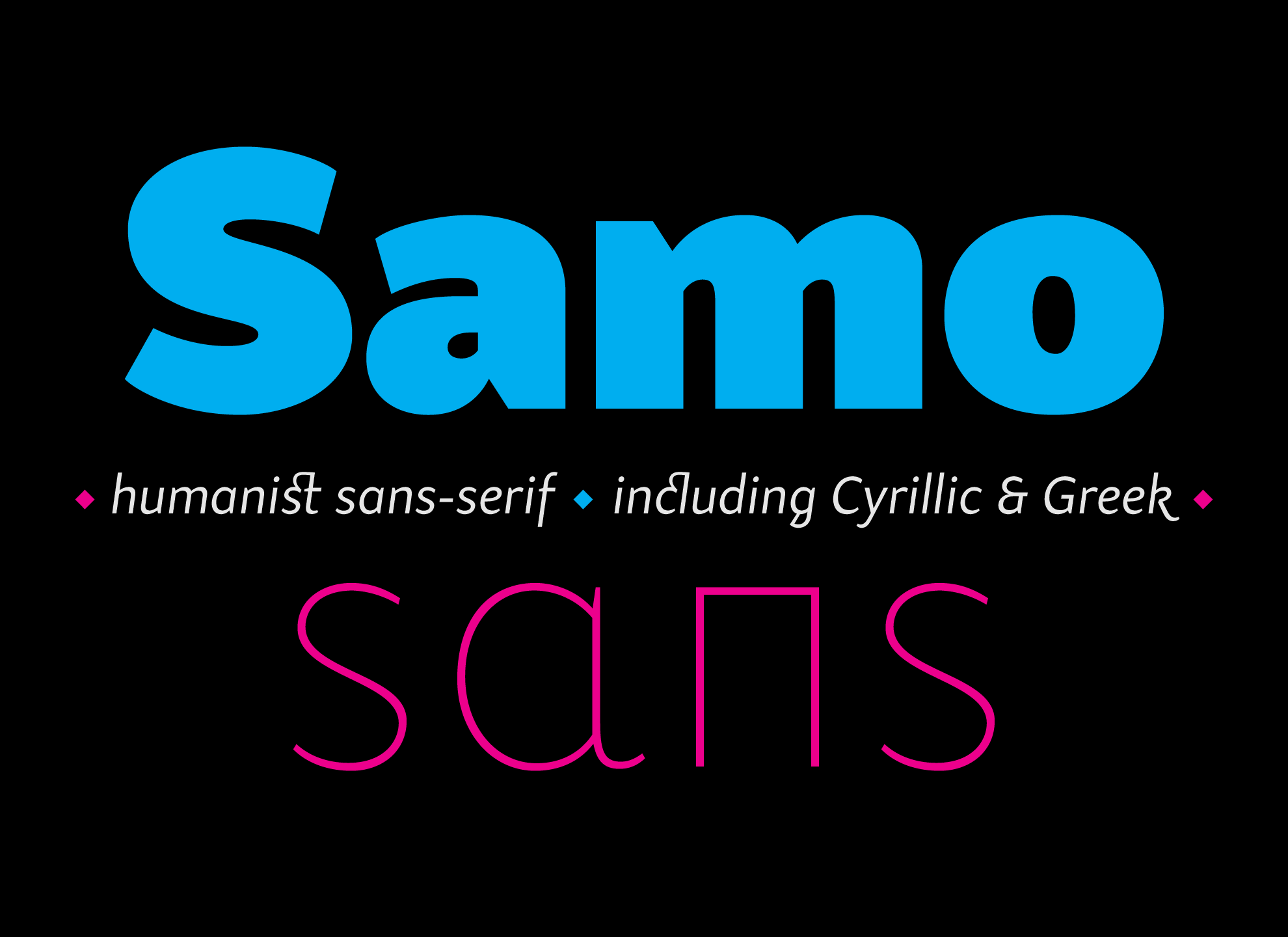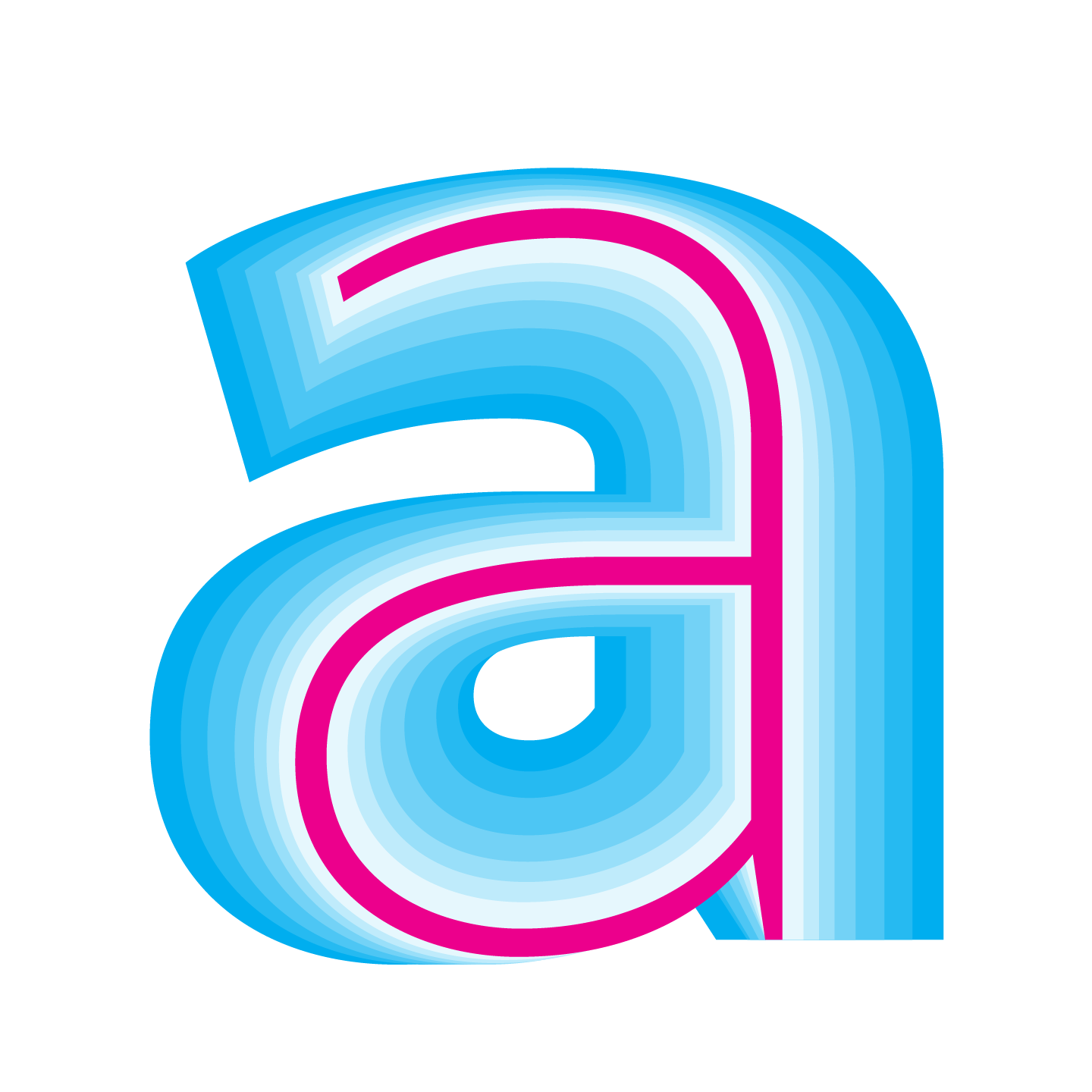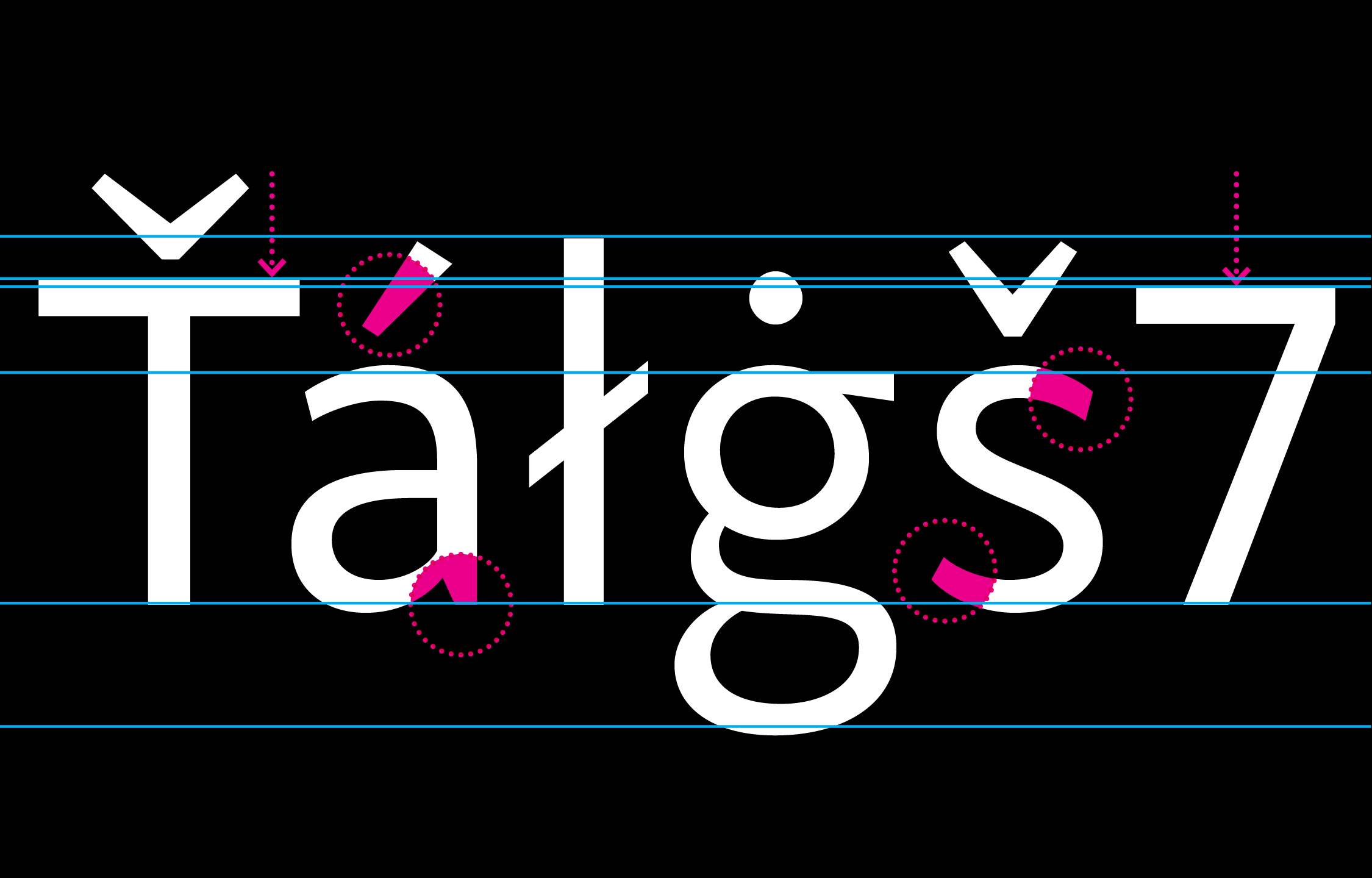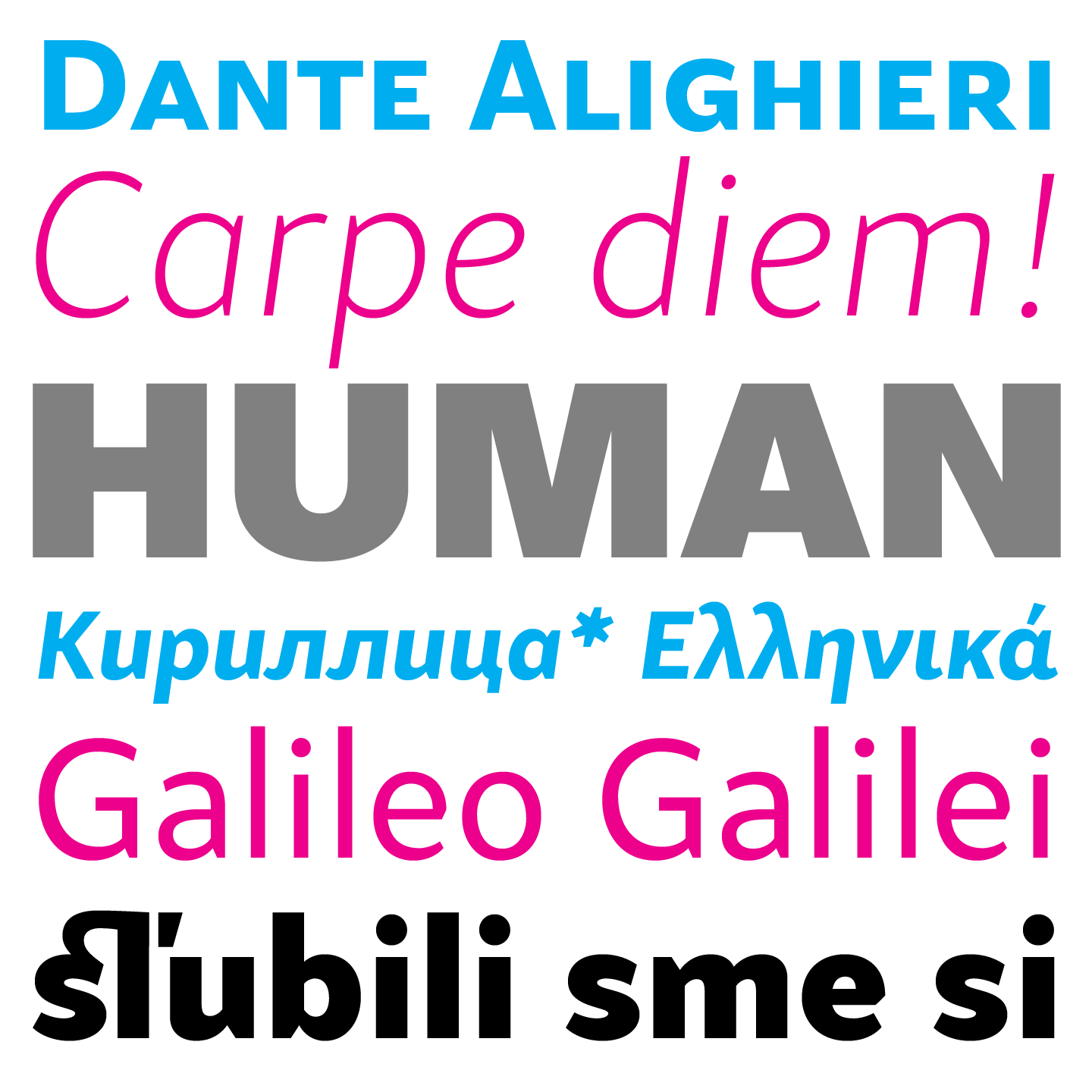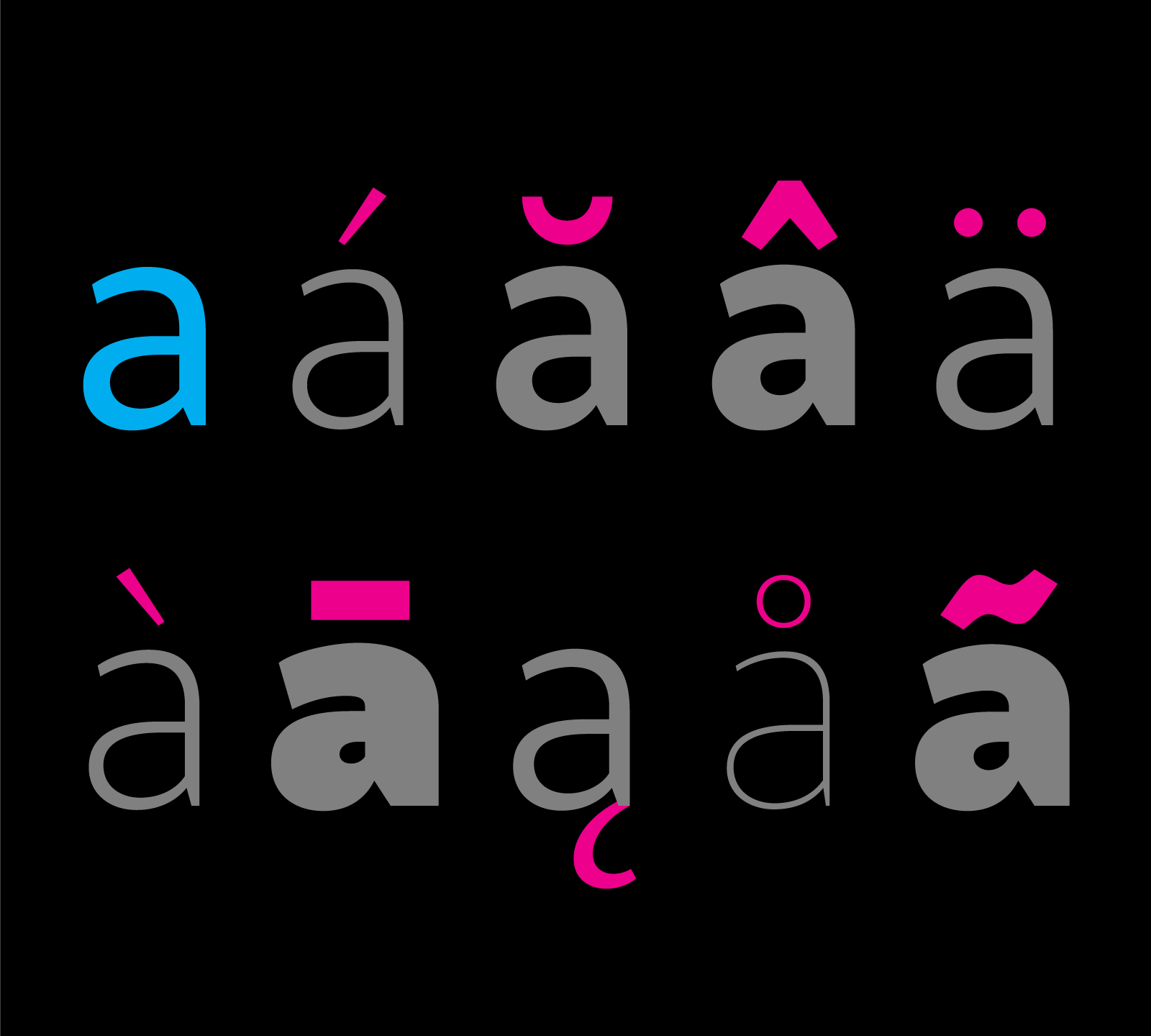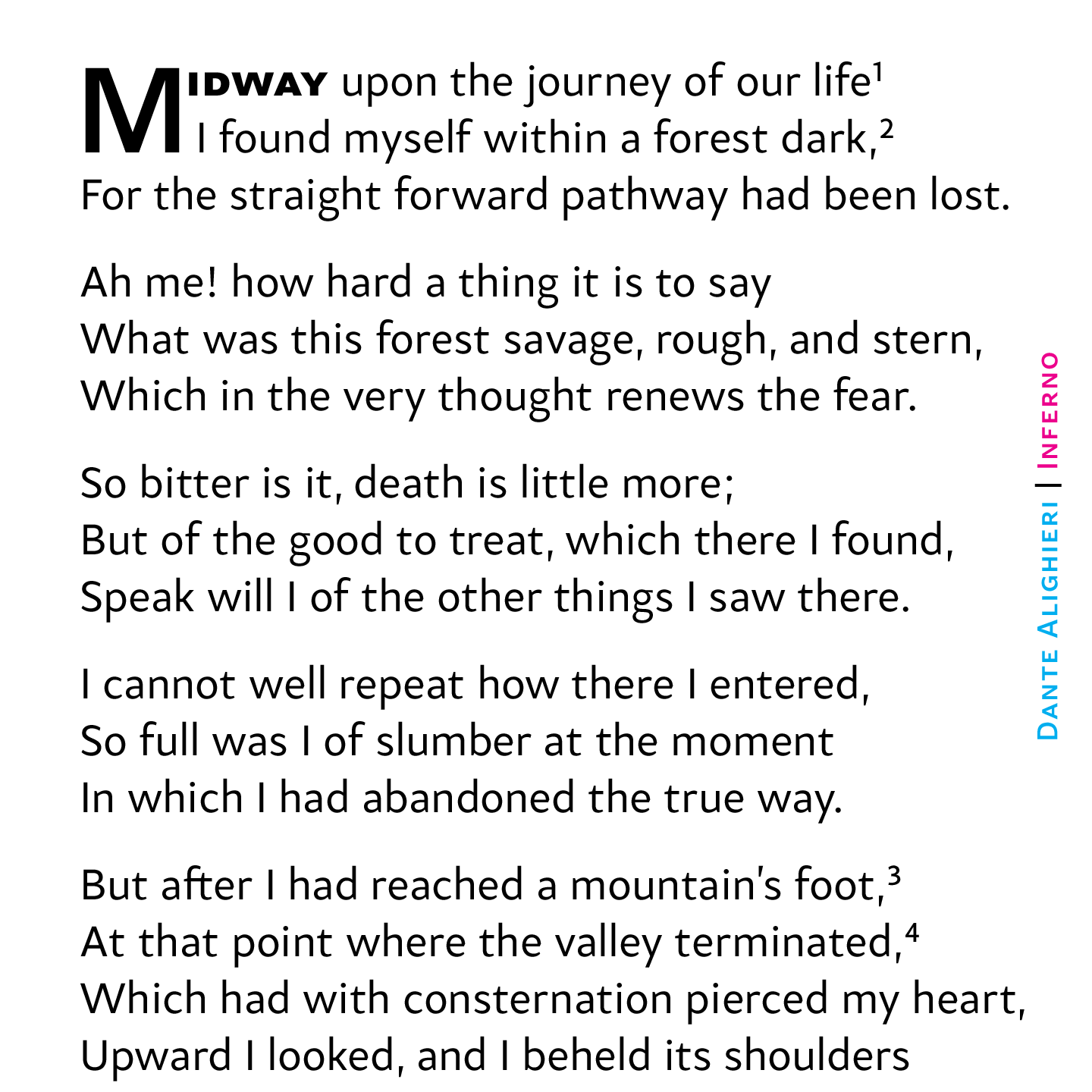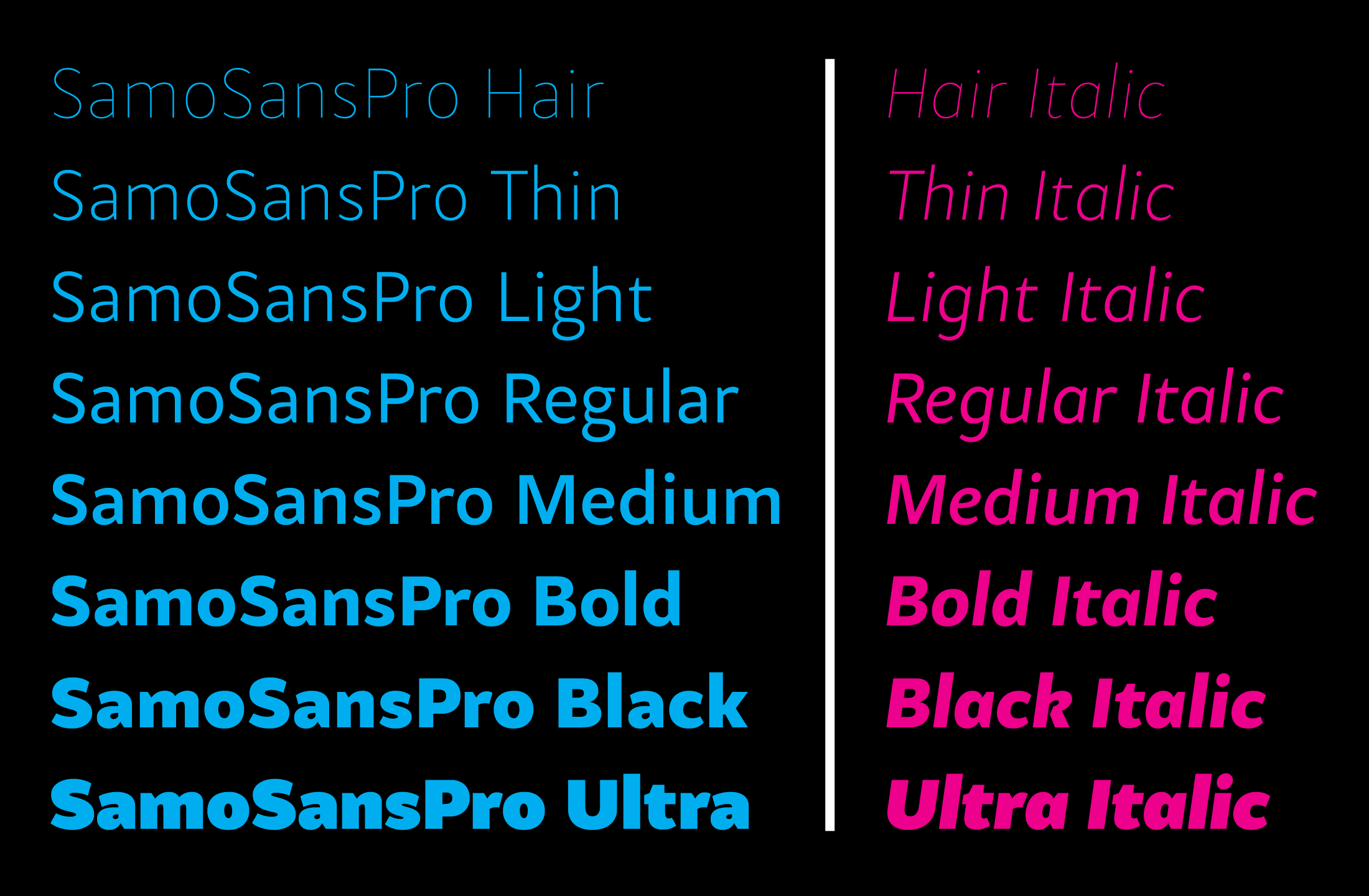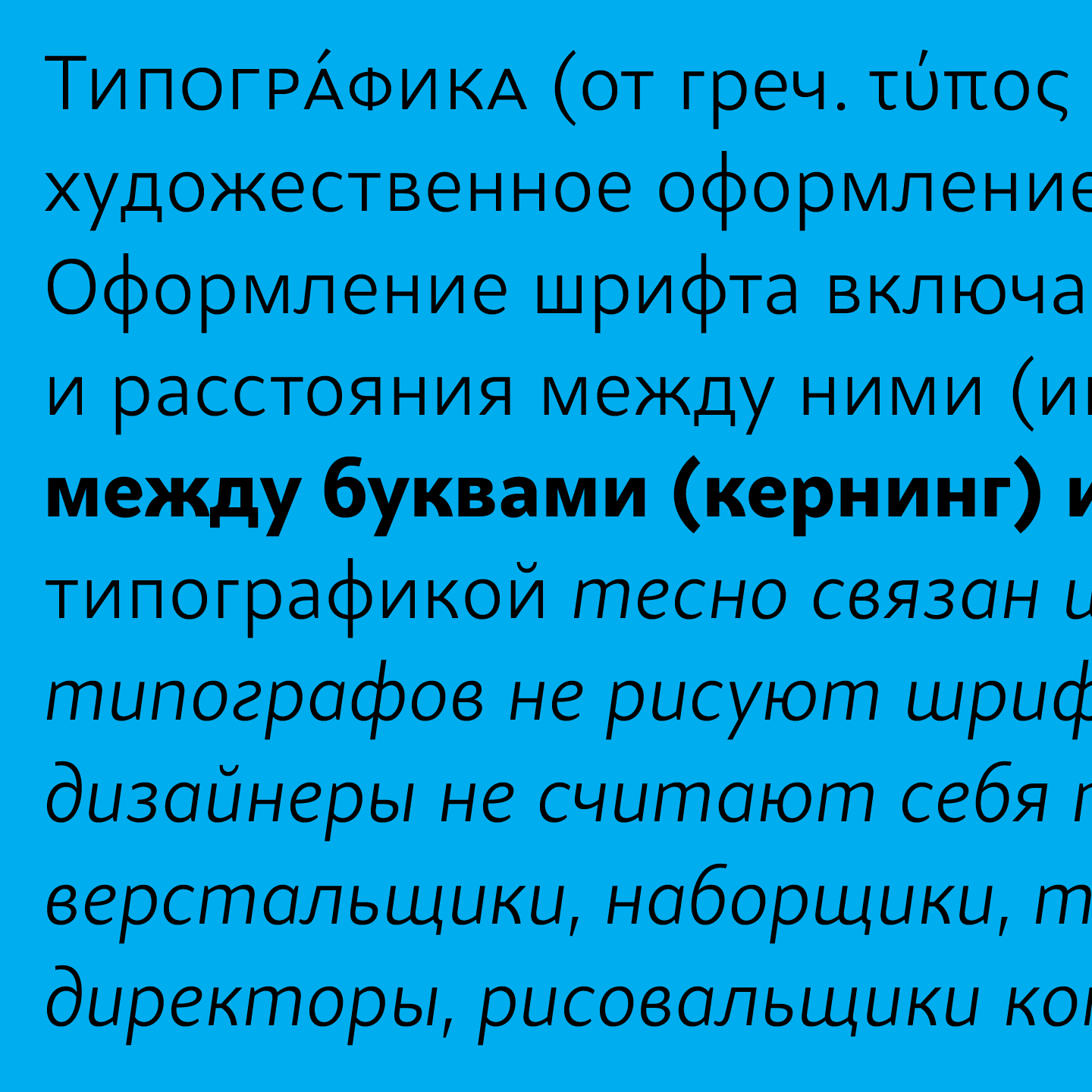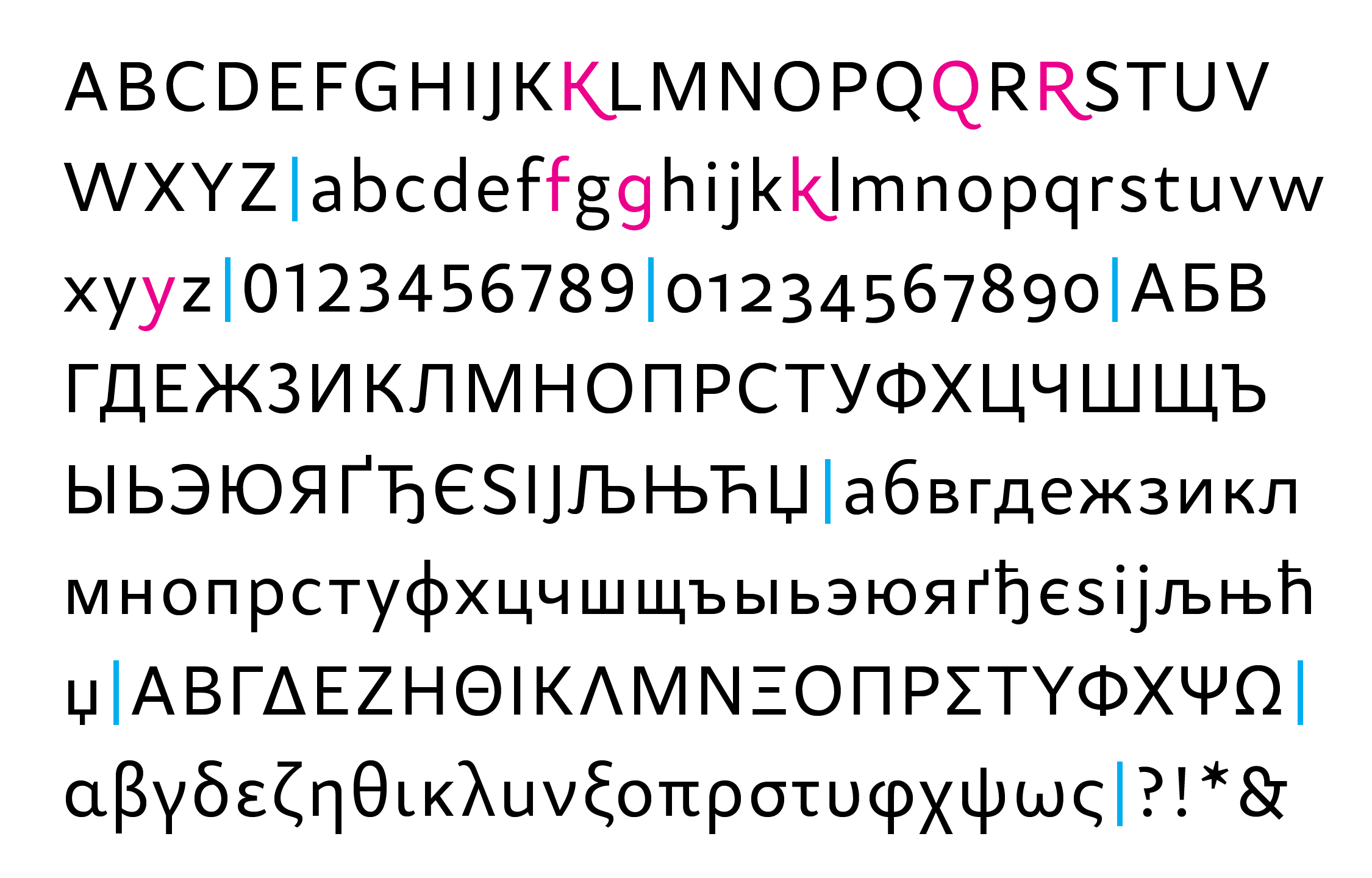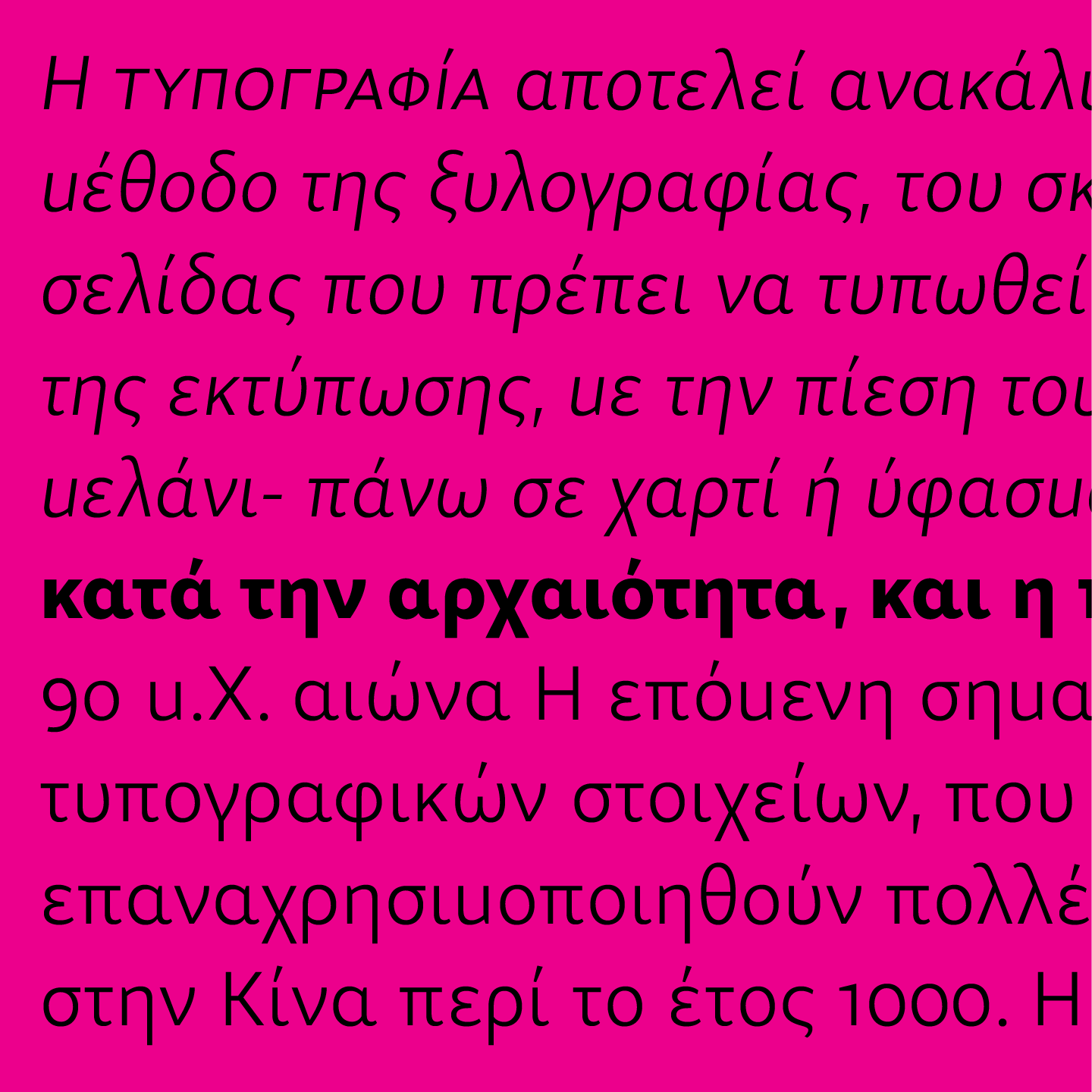
Samo Sans is a contemporary humanist sans-serif typeface with a slight contrast of strokes, balancing between technical design and dynamic feeling. The Pro Version is based on the Samo Sans basic typeface (4 styles), and it is extended by more styles, more glyphs, and other features required for professional typesetting. Beside the complete set of Latin, Samo Sans Pro includes Cyrillic and Greek glyphs as well. Each font includes alternate glyphs, small capitals, standard and discretionary ligatures, oldstyle/lining and tabular numerals, fractions, superiors/inferiors figures, set of arrows, dingbats and a wide range of typographic options applied by the Opentype features. The complete typeface family consists of 16 styles in 8 weights and their Italics. The type has a reduced height of caps and numerals and it has an optimal x-height, which makes it suitable for the typesetting of more extensive texts.